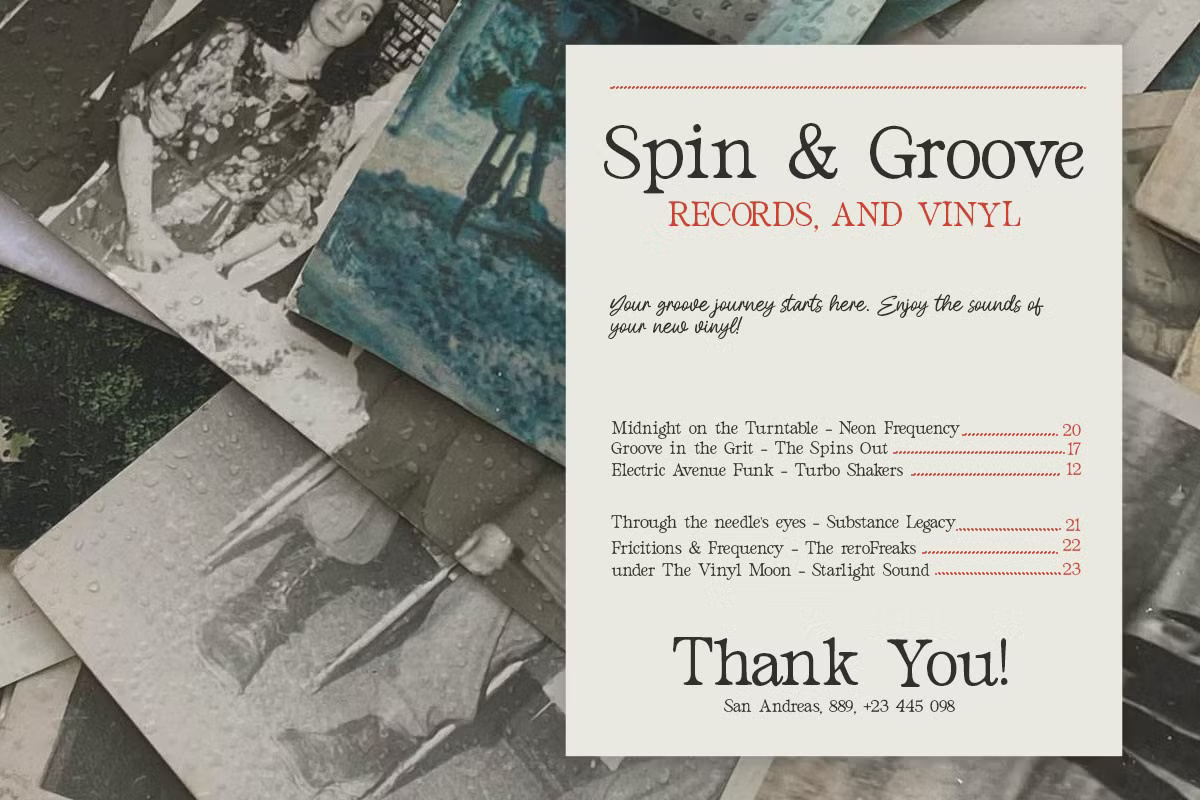
Bilena Font
Introducing Bilena – a classic old-style serif typeface with a handcrafted, timeless design. Perfect for elegant and minimalistic text, Bilena embodies a unique heritage, bringing beauty and sophistication to books, magazines, and logos. With its organic character and fully customizable features, this typeface is ideal for projects with historical and artistic appeal.